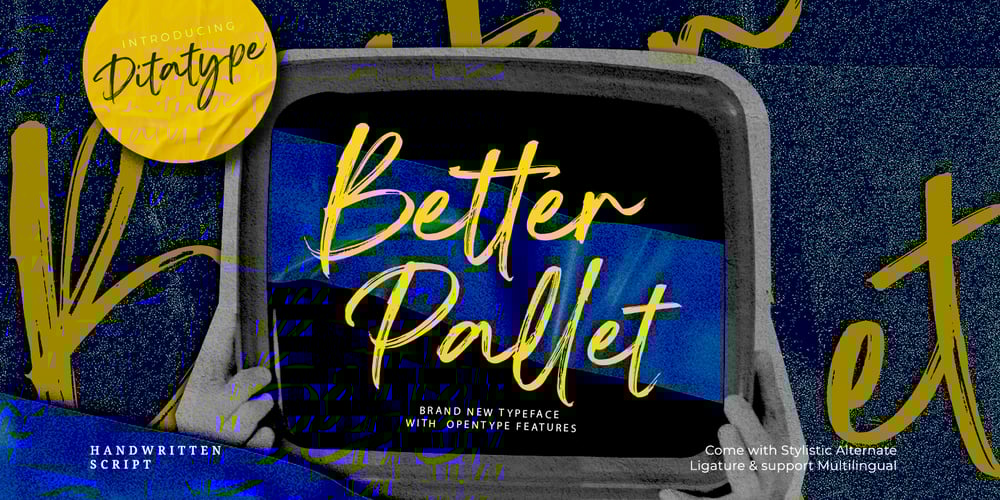
Better Pallet Font Family was designed by Donis Miftahudin and published by Ditatype. Better Pallet contains 1 styles and family package options. Better Pallet is a charming script font that beautifully captures the essence of continuous handwriting with brush details. The brush details infuse the font with a handcrafted charm. The continuous handwriting style of this font ensures that each letter flows gracefully into the next. For the best legibility you can use this font in the bigger text sizes. This font fits in headlines, logos, posters, flyers, invitations, branding materials, and many more.Thanks for purchasing our fonts.